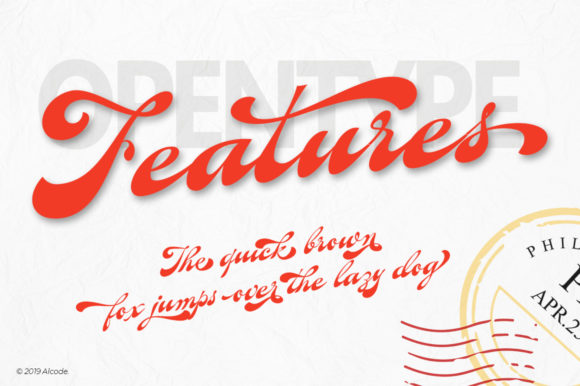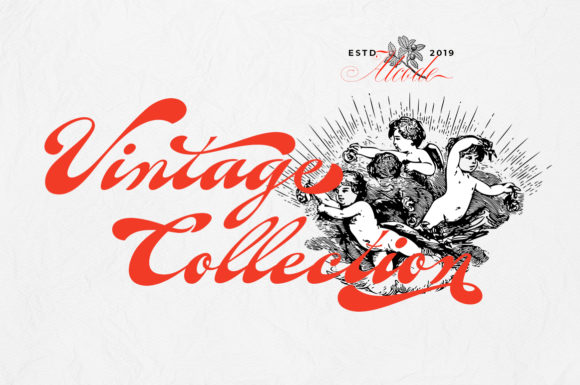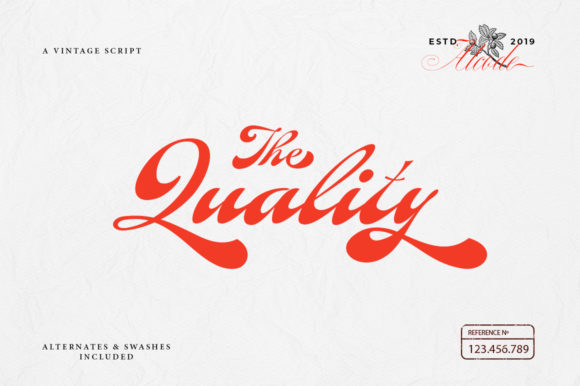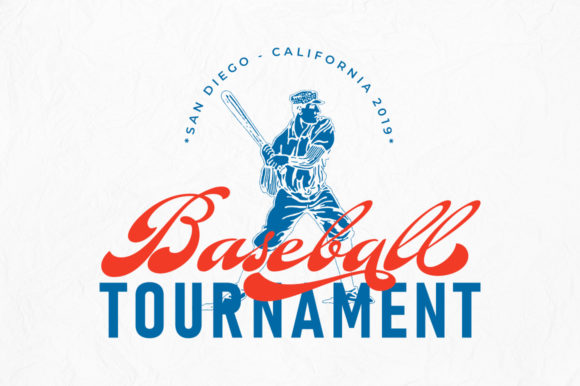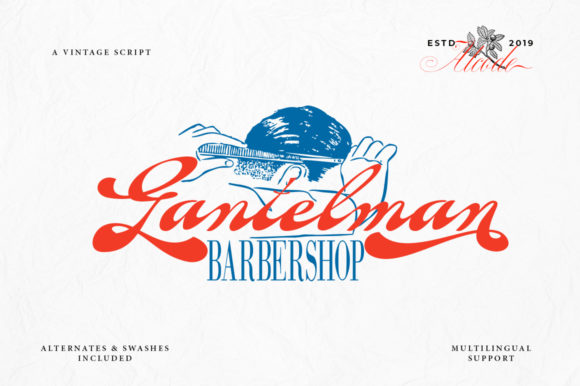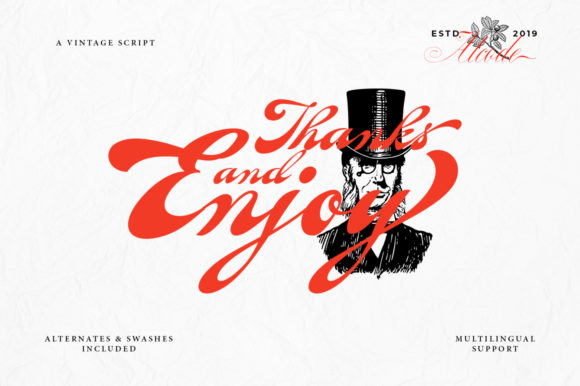
Introducing Fantera Font: The Playful Vintage Font for Your Design Needs
Are you a designer or crafter looking for a unique and stylish font to add a touch of nostalgia to your designs? Look no further than Fantera Font! This playful vintage font is designed to deliver quality and style, evoking the iconic look and feel of vintage advertising fonts.
What is Fantera Font?
Fantera Font is a script font that is inspired by the classic advertising fonts of the past. With its unique and elegant lettering, this font is perfect for adding a touch of sophistication and style to any design. Whether you’re working on a logo, a poster, or a craft project, Fantera Font is sure to make your design stand out.
Key Features of Fantera Font
- Playful and Vintage Look: Fantera Font has a playful and vintage look that is reminiscent of classic advertising fonts. Its unique lettering and styling make it perfect for adding a touch of nostalgia to your designs.
- High-Quality Design: Fantera Font is designed to deliver high-quality results, with crisp and clear lettering that looks great in any size.
- Elegant Script: This font features an elegant script that is perfect for adding a touch of sophistication to your designs.
Uses for Fantera Font
Fantera Font is a versatile font that can be used for a variety of design projects, including:
- Logo Design: Use Fantera Font to create a unique and stylish logo for your business or brand.
- Poster Design: Add a touch of nostalgia to your posters with Fantera Font.
- Crafting: Use Fantera Font to add a personal touch to your craft projects, such as scrapbooking, card making, and more.
- Digital Design: Use Fantera Font in your digital designs, such as social media graphics, blog posts, and more.
Why Choose Fantera Font?
There are many fonts available that claim to offer a vintage or playful look, but Fantera Font stands out from the crowd. Here are just a few reasons why:
- Unique Design: Fantera Font has a unique design that sets it apart from other fonts.
- High-Quality Results: This font delivers high-quality results, with crisp and clear lettering that looks great in any size.
Tips for Using Fantera Font
Here are a few tips for getting the most out of Fantera Font:
- Use it Sparingly: Fantera Font is a bold font, so use it sparingly to add emphasis to your designs.
- Pair it with Other Fonts: Fantera Font pairs well with other fonts, so try pairing it with a sans-serif font for a unique look.
Fantera Font is a playful vintage font that delivers quality and style. With its unique script and elegant lettering, this font is perfect for adding a touch of nostalgia to any design. Whether you’re a designer or crafter, Fantera Font is a great choice for your next project.